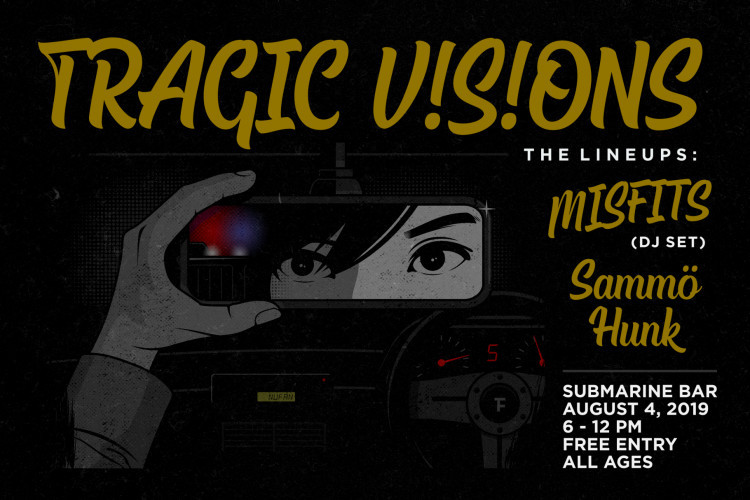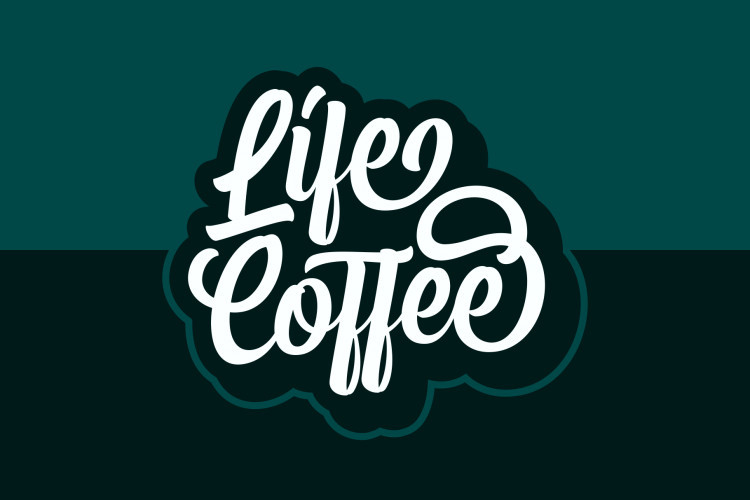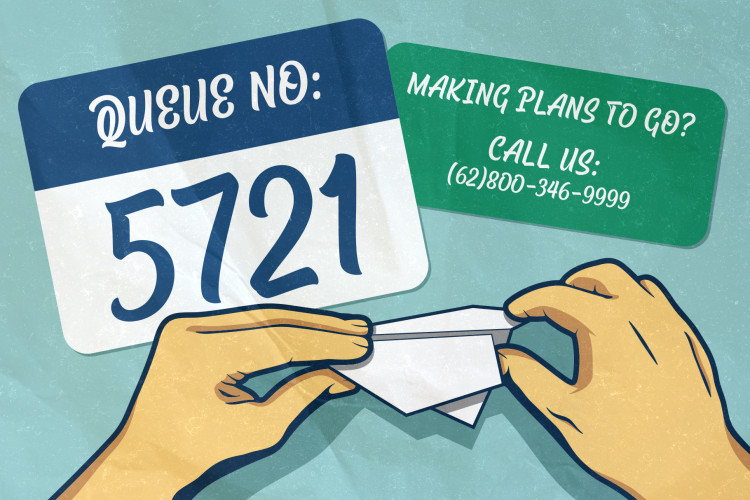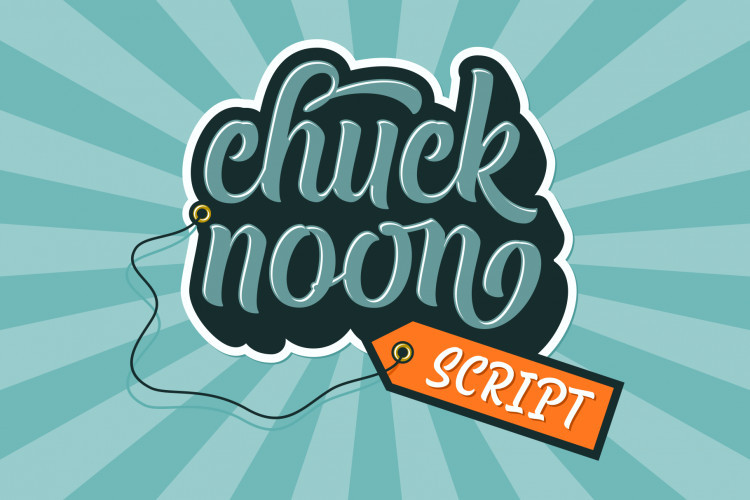
Chuck Noon Script Font
Chuck Noon Script – Demo Font
Hello world..!! I am very happy and happy to be introduced to you the best typography, and today is a sweet yet elegant display script. Introducing Chuck Noon. It is was designed by Twicolabs Fontdation. A clean and bold script font that offers you a natural hand-lettering experience. Handcrafted and digitally checked with high attention to the details, we’re a sucker for clean lines and crispy edges too, just like you. Its dynamic letterforms work like magic, whether you go all caps or using it normally as a script. Suits best for logotype, poster/t-shirt designs, food/beverage labels, hipster quotes, greeting cards, wedding invitations, and many more.